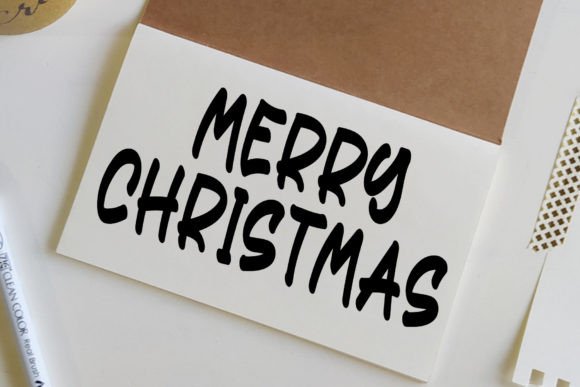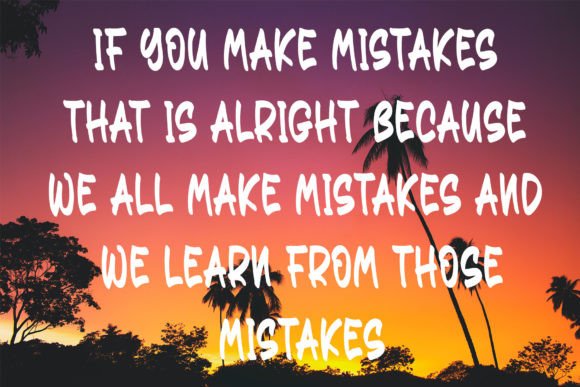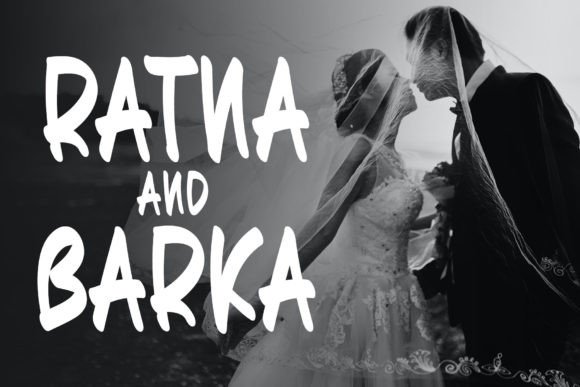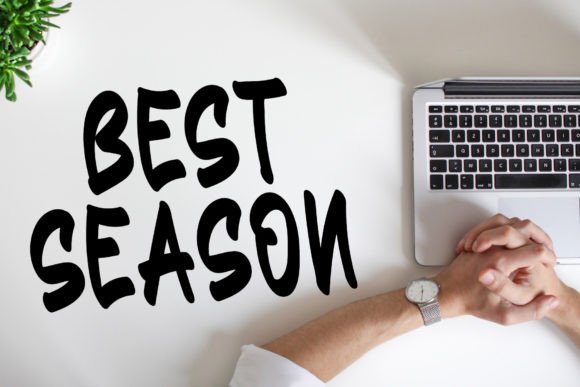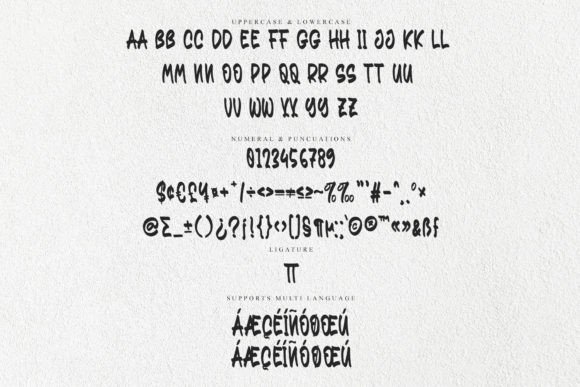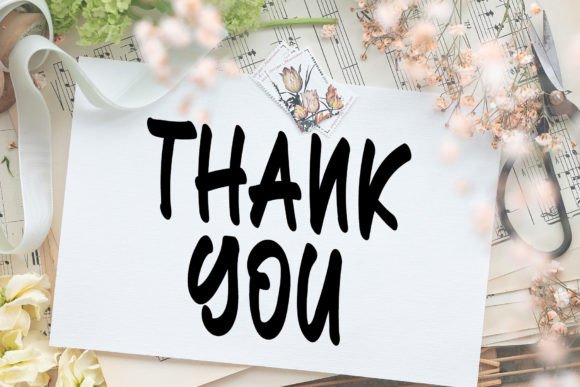
Crafty Cheese Font: The Perfect Addition to Your Design Projects
Are you a designer or crafter looking for a font that can add a touch of whimsy and charm to your projects? Look no further than the Crafty Cheese Font! This delightful display font is brimming with personality and is perfect for a variety of design applications, from children’s books to party invitations.
The Characteristics of Crafty Cheese Font
Crafty Cheese Font is a playful and friendly font that is sure to evoke a sense of camaraderie and joy. Its playful curves and friendly demeanor make it the perfect choice for designers who want to add a touch of warmth and cheerfulness to their projects. Whether you’re working on a children’s book, a party invitation, or any other design project, Crafty Cheese Font is sure to bring a smile to your audience’s face.
What Makes Crafty Cheese Font So Special?
So, what sets Crafty Cheese Font apart from other fonts? Here are just a few of its special features:
- Playful curves: Crafty Cheese Font features playful curves that give it a friendly and approachable feel.
- Whimsical charm: This font is brimming with whimsy and charm, making it perfect for designers who want to add a touch of personality to their projects.
- Warm and cheerful: Crafty Cheese Font radiates warmth and cheerfulness, making it perfect for projects that need to evoke a sense of joy and camaraderie.
Uses for Crafty Cheese Font
Crafty Cheese Font is a versatile font that can be used for a variety of design projects. Here are just a few ideas to get you started:
- Children’s books: Crafty Cheese Font is perfect for children’s books, with its playful curves and friendly demeanor making it a great choice for storybooks, picture books, and more.
- Party invitations: Add a touch of whimsy and charm to your party invitations with Crafty Cheese Font. It’s perfect for birthday parties, baby showers, and other celebrations.
- Branding and packaging: Crafty Cheese Font can also be used for branding and packaging projects, adding a touch of personality and whimsy to your products.
- Signage and displays: This font is also great for signage and displays, adding a touch of warmth and cheerfulness to your message.
Tips for Using Crafty Cheese Font
Here are a few tips for using Crafty Cheese Font in your design projects:
- Use it sparingly: While Crafty Cheese Font is a beautiful font, it can be overwhelming if used too much. Use it sparingly to add a touch of whimsy and charm to your projects.
- Pair it with other fonts: Crafty Cheese Font pairs well with other fonts, so don’t be afraid to experiment with different combinations.
- Experiment with colors: This font looks great in a variety of colors, so experiment with different hues to find the perfect one for your project.
Crafty Cheese Font is a delightful display font that is sure to add a touch of whimsy and charm to your design projects. With its playful curves and friendly demeanor, it’s perfect for designers who want to evoke a sense of camaraderie and joy. Whether you’re working on a children’s book, a party invitation, or any other design project, Crafty Cheese Font is a great choice. So why not give it a try and see the difference it can make in your designs?
In conclusion, Crafty Cheese Font is a wonderful addition to any design project. Its playful curves, whimsical charm, and warm and cheerful demeanor make it perfect for designers who want to add a touch of personality to their work. Whether you’re a seasoned designer or just starting out, Crafty Cheese Font is a great choice for any project. So why not give it a try and see the difference it can make?